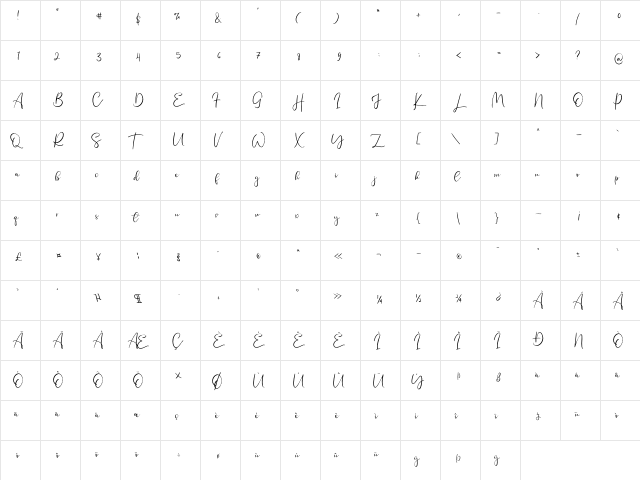
Single Signature Thin Ordinary Regular
Design Context for Single Signature Thin Ordinary Typeface
Single Signature Thin Ordinary takes a measured approach to typography — its balanced proportions and neutral character make it a reliable workhorse for both digital and print work. Its slender proportions lend an understated elegance to any composition.